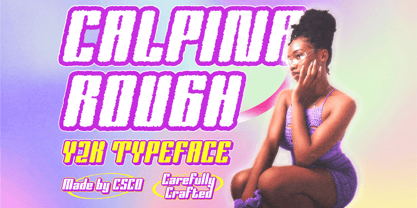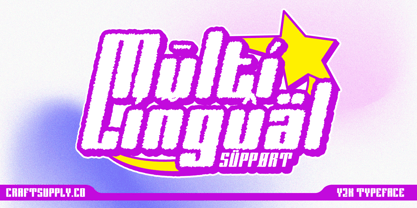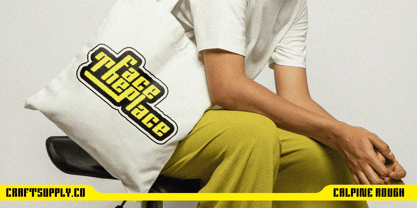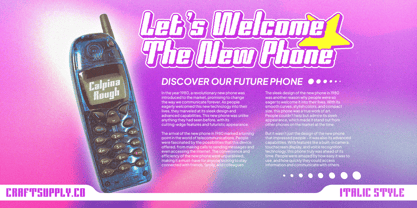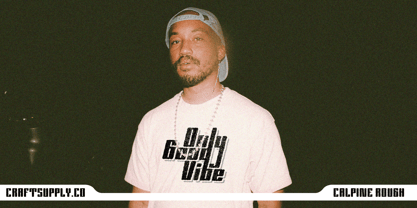
Calpina Rough
La familia tipográfica Calpina Rough fue diseñada por Trio Nazzar Saputra, Wahyu Hadi Yuana y publicada por Craft Supply Co. Calpina Rough contiene 2 estilos y opciones de paquete familiar. Más información sobre esta familia
Calpina Rough: Y2K-Style Sans Serif Font
Nostalgic Cheerfulness with Retro Vibes
Calpina Rough is a Y2K-style sans serif font that brings back the nostalgia of the 90s and early 2000s with its bold letterforms and retro design elements. Inspired by the energetic and daring styles of that era, this font exudes cheerfulness and fun while capturing the vibrant spirit of Y2K aesthetics.
Bold and Geometric Design
The bold letterforms of Calpina Rough reflect the bold geometric shapes and bright colors typical of Y2K design. This font brings a retro vibe to your projects, making it ideal for designs that aim to evoke the energetic and nostalgic vibes of the turn of the millennium.
Perfect for Energetic Projects
Ideal for posters, branding, and digital designs, Calpina Rough excels in projects seeking to infuse a sense of energy and nostalgia. Its Y2K-inspired style ensures your designs stand out with a playful and daring aesthetic that resonates with a modern audience.
Evoke Nostalgic Vibes
Choose Calpina Rough to evoke nostalgic vibes and capture the essence of the Y2K era in your designs. Whether for digital interfaces or printed materials, this font promises to add a retro and funky charm that sparks memories and creates a lively visual experience.